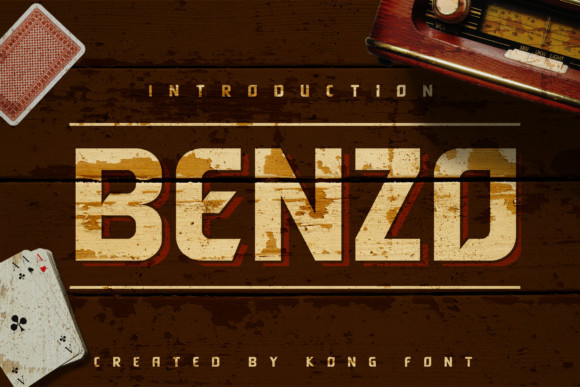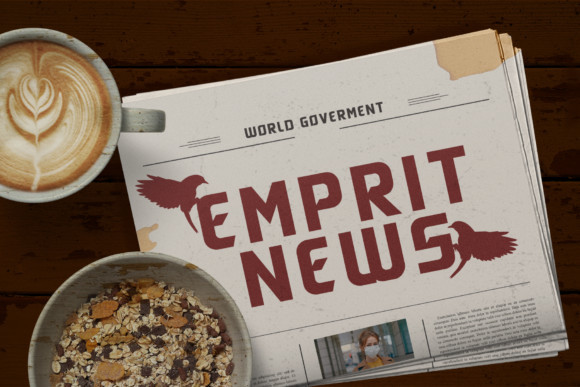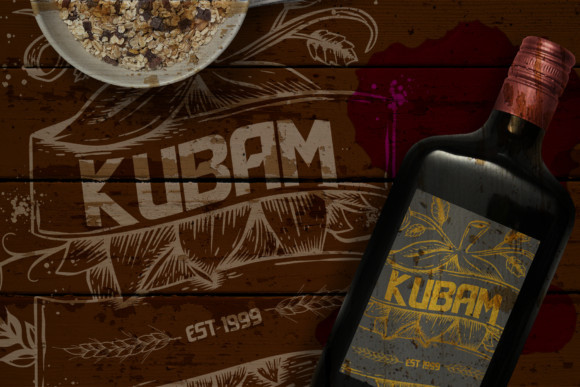
Benzo Font
Benzo is an elegant serif font, carefully handcrafted to become a true favorite. This font is the perfect fit for all of your logos, branding, social media, and crafty DIY projects.